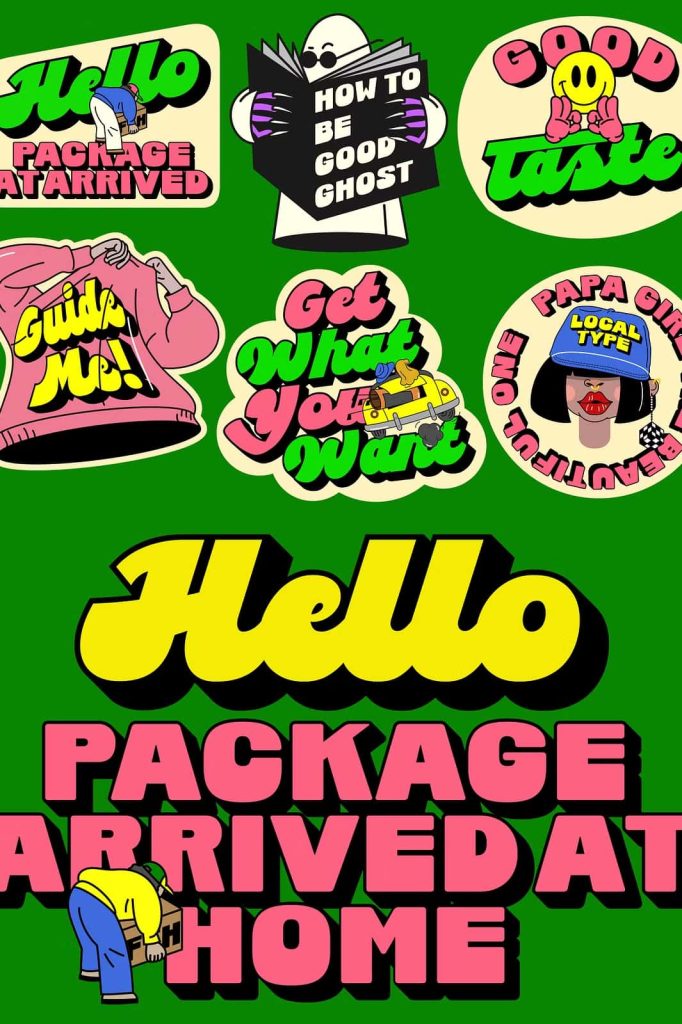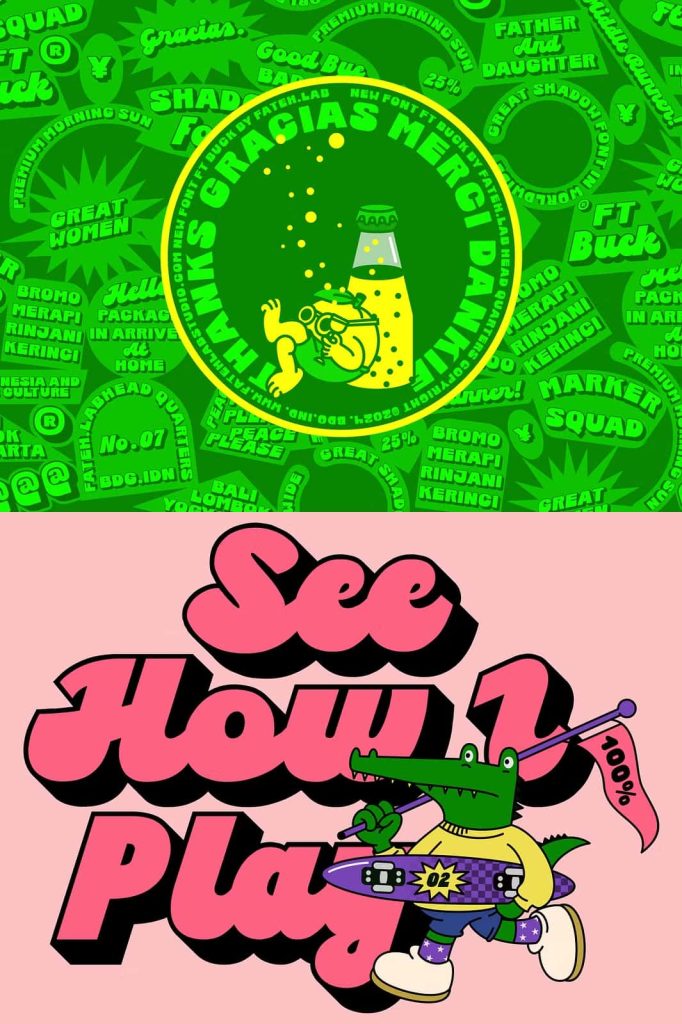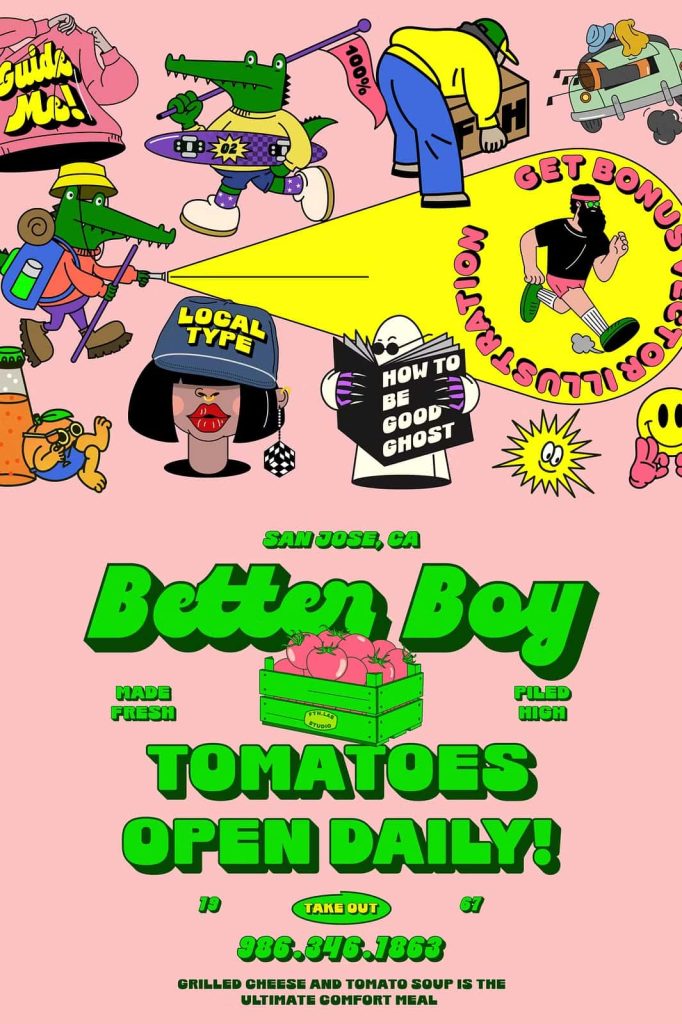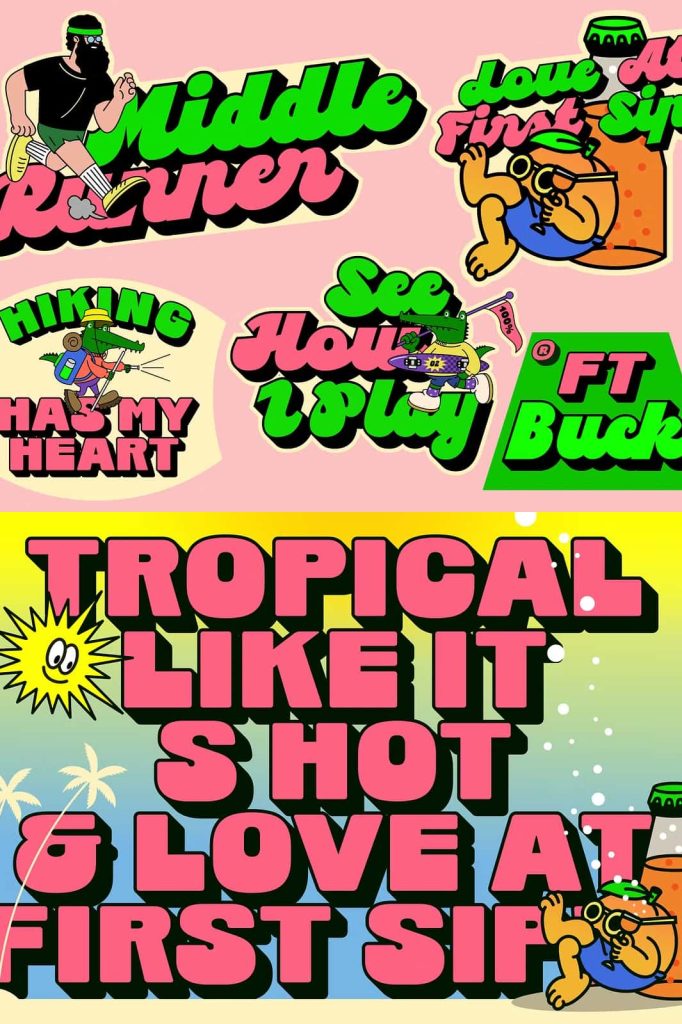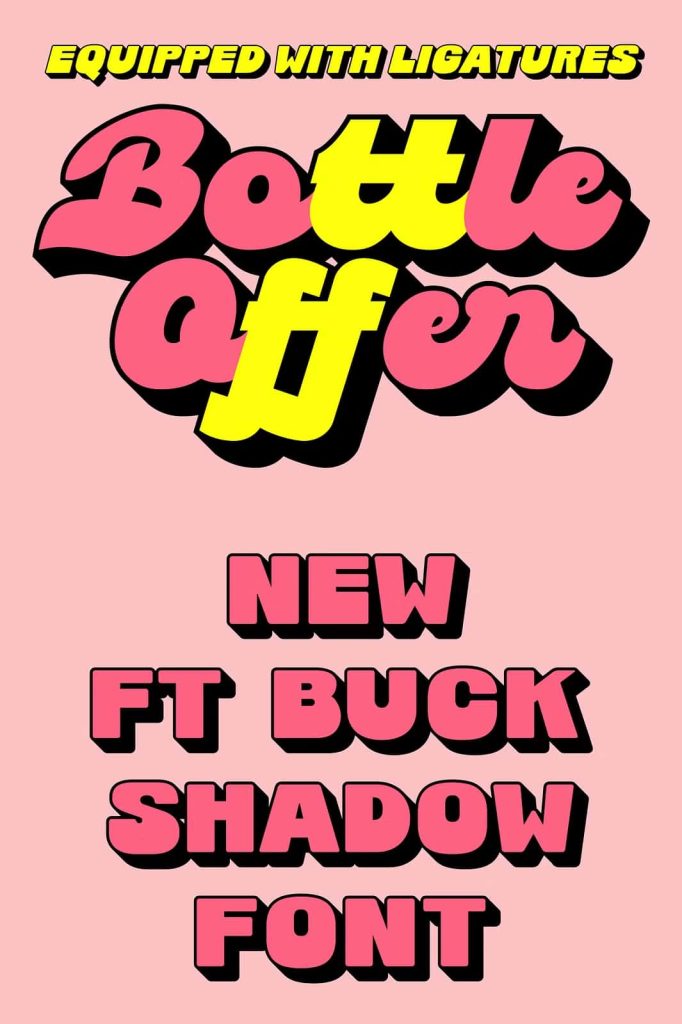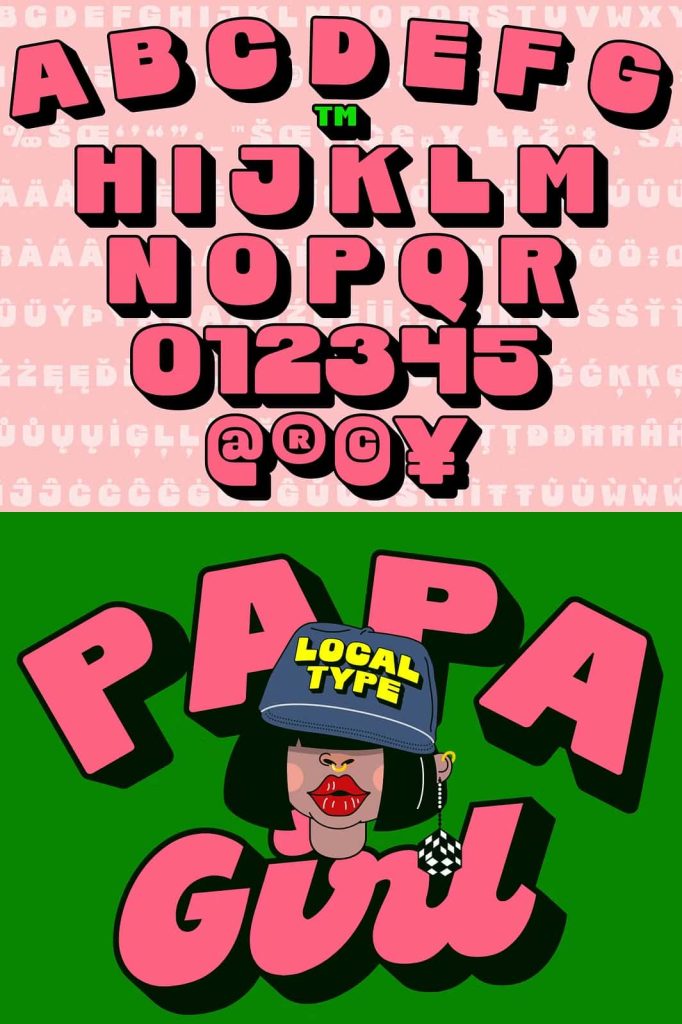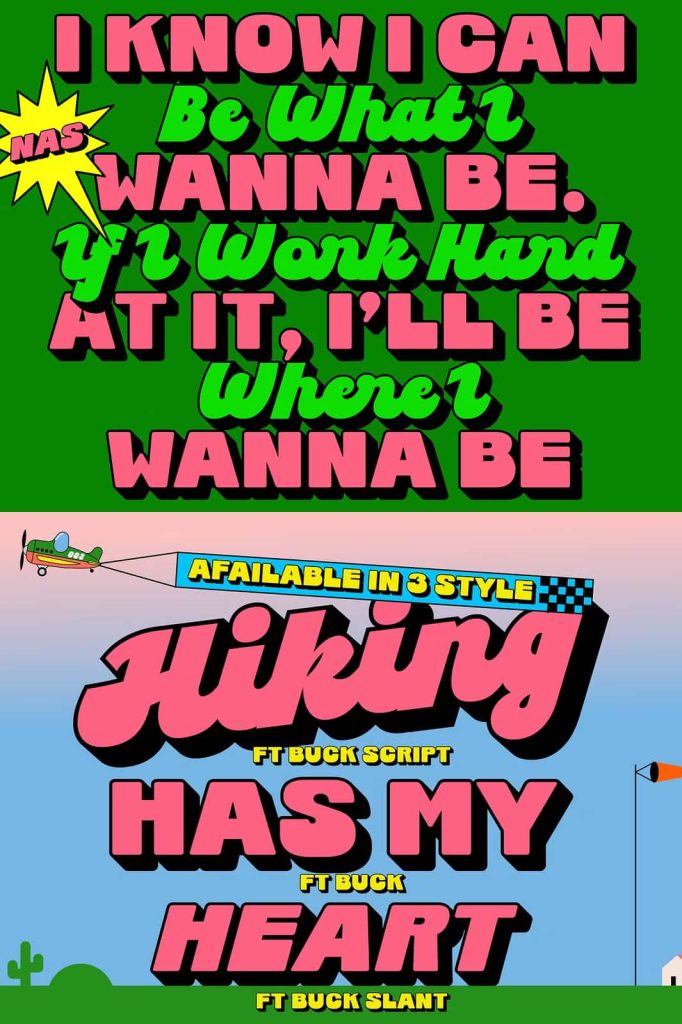
Ft Buck Shadow Font: Bold Depth and Modern Style for Trend-Driven Design
A New Direction in Contemporary Typography
Ft Buck is the latest typeface release from Fateh, Lab, introducing a fresh perspective on modern typography. This shadow font captures the evolving direction of current design trends by combining depth, softness, and bold visual impact. It stands out as a forward-thinking typeface that brings dimension and character into every project.
Unlike traditional flat typography, Ft Buck uses shadow elements to create a layered appearance. This effect adds visual depth and enhances readability, making each letter feel dynamic and engaging. The font reflects a modern aesthetic that resonates with designers who want to stay ahead of trends while maintaining a clean and structured look.
Soft Yet Bold for Maximum Visual Impact
Ft Buck strikes a unique balance between softness and strength. Its bold letterforms command attention, while the smooth curves and subtle shadowing soften the overall appearance. This combination allows the font to remain approachable while still delivering a powerful visual statement.
The shadow effect enhances contrast without overwhelming the design. It creates a sense of movement and dimension, making text appear more interactive and alive. This makes Ft Buck especially effective in designs where you want to draw attention quickly and leave a lasting impression.
Key Features
- Modern shadow font with strong visual depth
- Soft curves combined with bold, impactful letterforms
- Three font styles for flexible design options
- Clean and structured shapes for improved readability
- Ideal for contemporary and trend-focused projects
Three Styles for Creative Flexibility
Ft Buck includes three distinct font styles, giving you the flexibility to explore different design directions within a single typeface family. Each style maintains the core identity of the font while offering variations that enhance your creative possibilities.
You can use one style for bold headlines, another for supporting text, and a third for decorative elements. This versatility allows you to maintain consistency across your design while still introducing variety and visual interest. The availability of multiple styles ensures that Ft Buck adapts to different layouts and creative needs.
Whether you are working on a minimal composition or a more complex design, Ft Buck provides the tools you need to build a cohesive and engaging visual experience.
Perfect for Modern Branding and Eye-Catching Designs
Ft Buck performs exceptionally well in branding projects that require a strong and memorable identity. Its shadow effect helps logos stand out by adding depth and uniqueness. Brands can use this font to communicate confidence, creativity, and modernity.
In poster design and advertising, Ft Buck shines as a headline font. Its bold presence ensures that messages remain visible even from a distance. The layered shadow effect enhances readability while adding a stylish and contemporary touch.
This font also works well for social media graphics, packaging, and promotional materials. Its modern aesthetic aligns with current visual trends, making it a reliable choice for designers who want to create content that feels relevant and engaging.
Elevate Your Design with Depth and Style
Using Ft Buck allows you to move beyond flat typography and explore a more dimensional approach to design. The shadow effect adds depth without complicating your layout, helping you create visually rich compositions with minimal effort.
The font integrates smoothly into various design workflows, whether you are working on digital platforms or print materials. Its clean structure ensures that it remains readable while still delivering a bold and artistic impression.
Why Choose Ft Buck
Ft Buck offers a powerful combination of style, versatility, and modern appeal. It reflects the current evolution of typography while providing practical solutions for everyday design challenges. With its three styles and distinctive shadow effect, it gives you the freedom to experiment while maintaining a cohesive look.
If you want a typeface that captures attention, adds depth, and aligns with modern design trends, Ft Buck is a strong and reliable choice. It empowers you to create bold, stylish, and impactful designs that stand out in today’s competitive visual landscape.